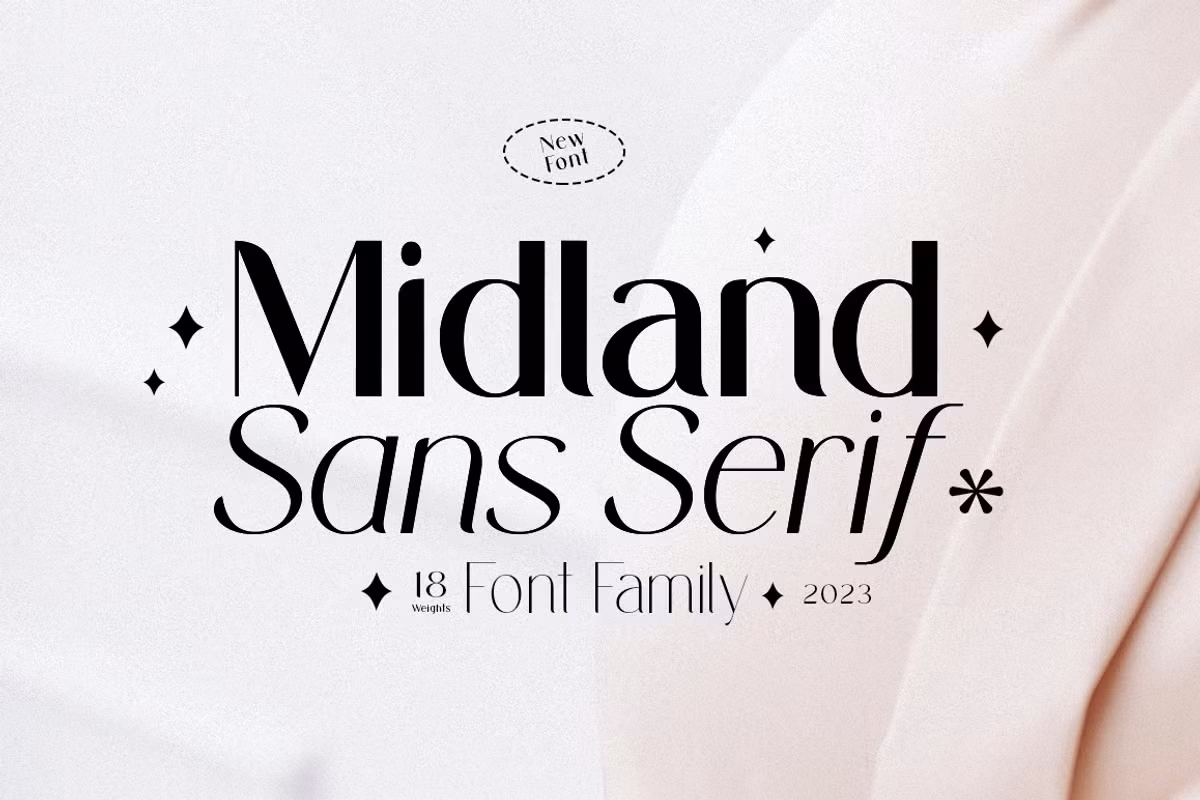
Midland Luxury Font Family Free Download is your go-to typeface when elegance meets versatility. Designed to exude class and modern sophistication, this font family is perfect for premium branding, high-end packaging, fashion editorials, and minimalist web design. With a variety of weights and refined letterforms, Midland adapts beautifully to both bold statements and subtle, luxurious details.
Its clean lines and graceful proportions make it a standout choice for anyone aiming to add a high-class touch to their visuals. Whether you're working on business presentations, logo designs, or social media graphics, Midland ensures your text looks polished and professional.